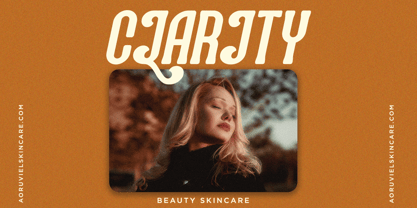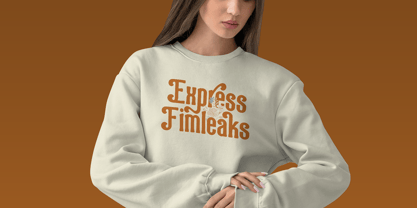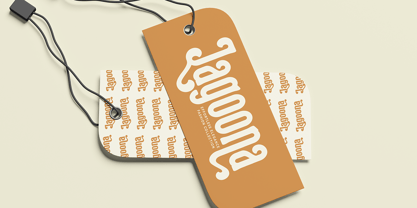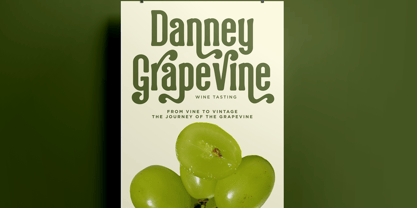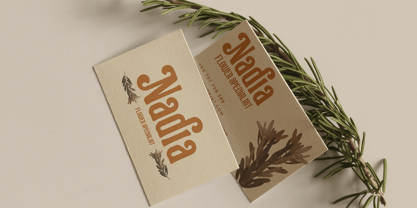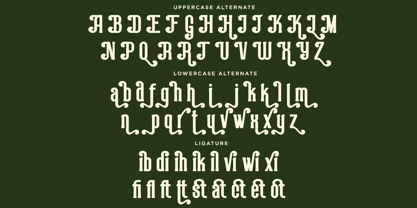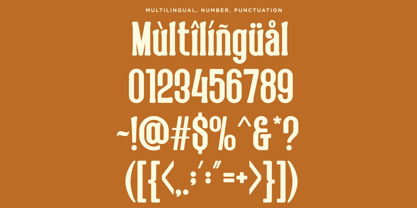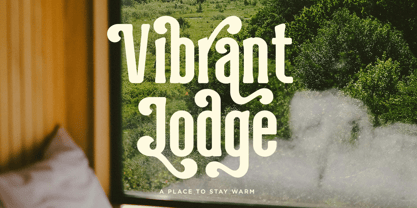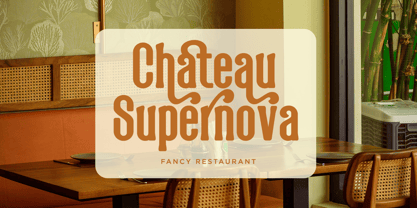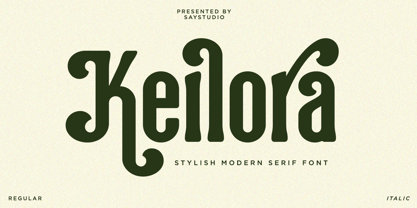
Keilora
Keilora is a modern condensed serif font with a tall and clean look. It combines tall clean serifs with rounded swash alternates and a contemporary twist, creating a versatile, high-contrast look suitable for both text and headlines. Its combination of boldness and legibility makes it suitable for a wide range of designs, from editorial to branding.
Keilora Included :
- Keilora
- Keilora Italic
- Stylishtic Alternates
- Ligatures Character
- Multilingual Support